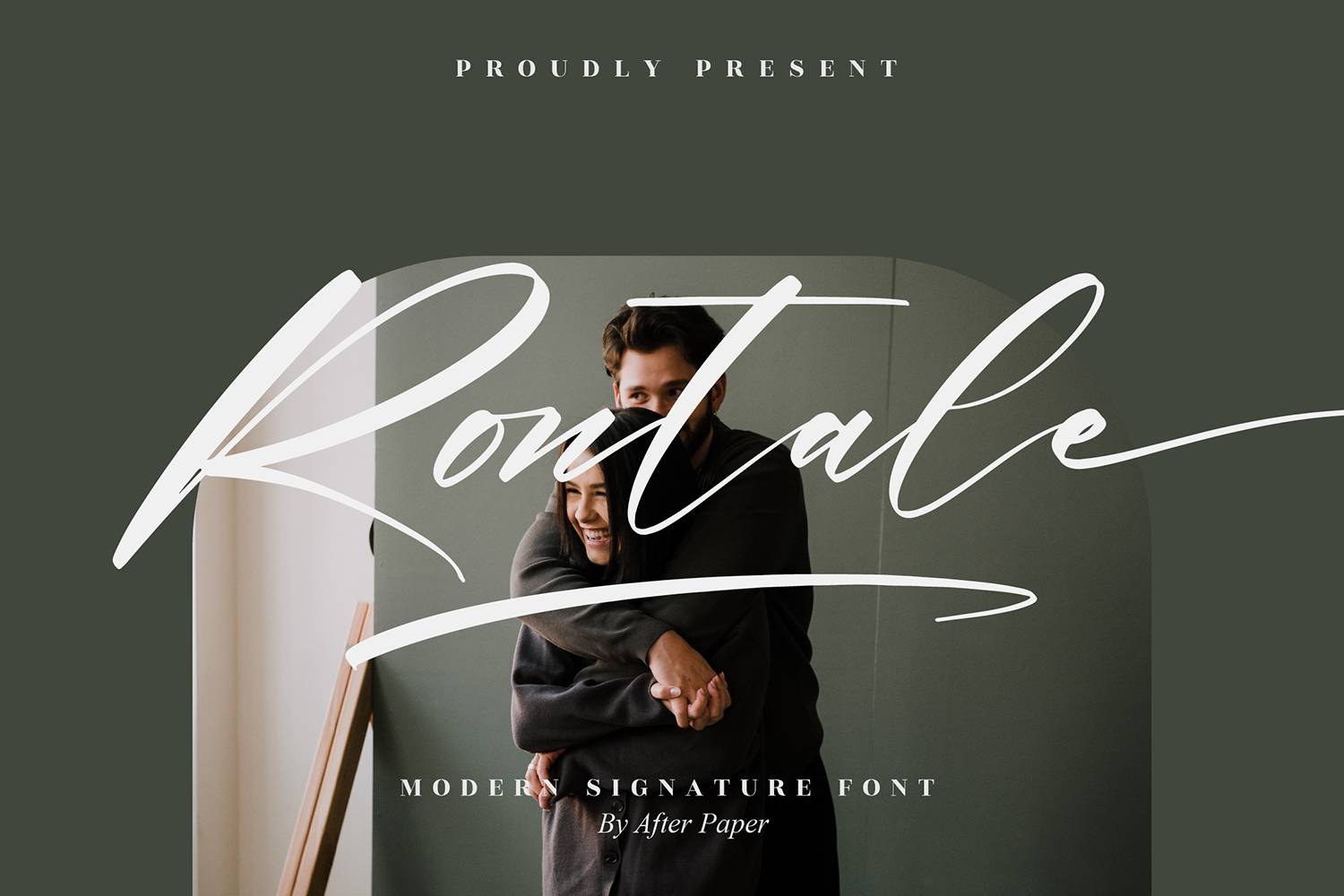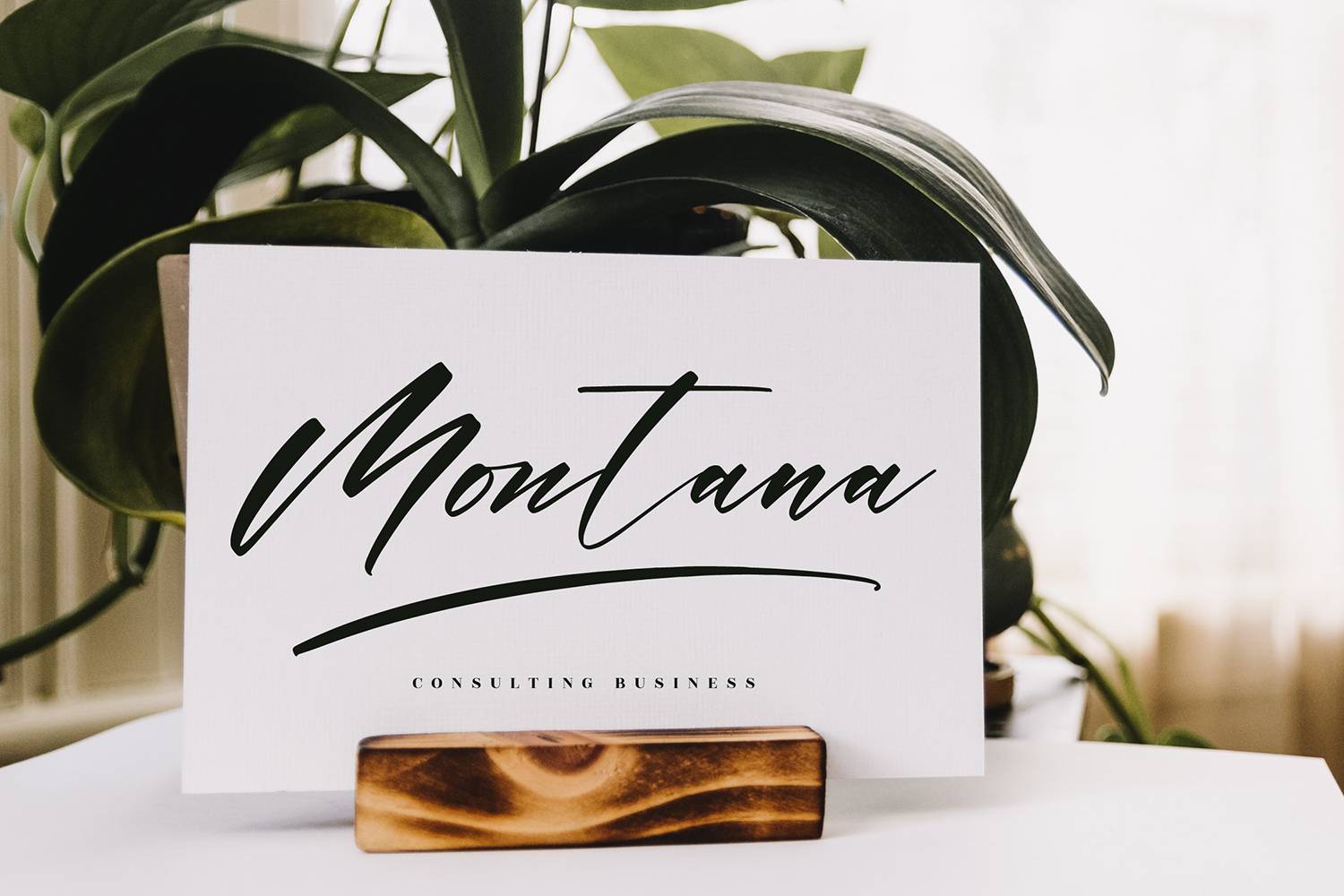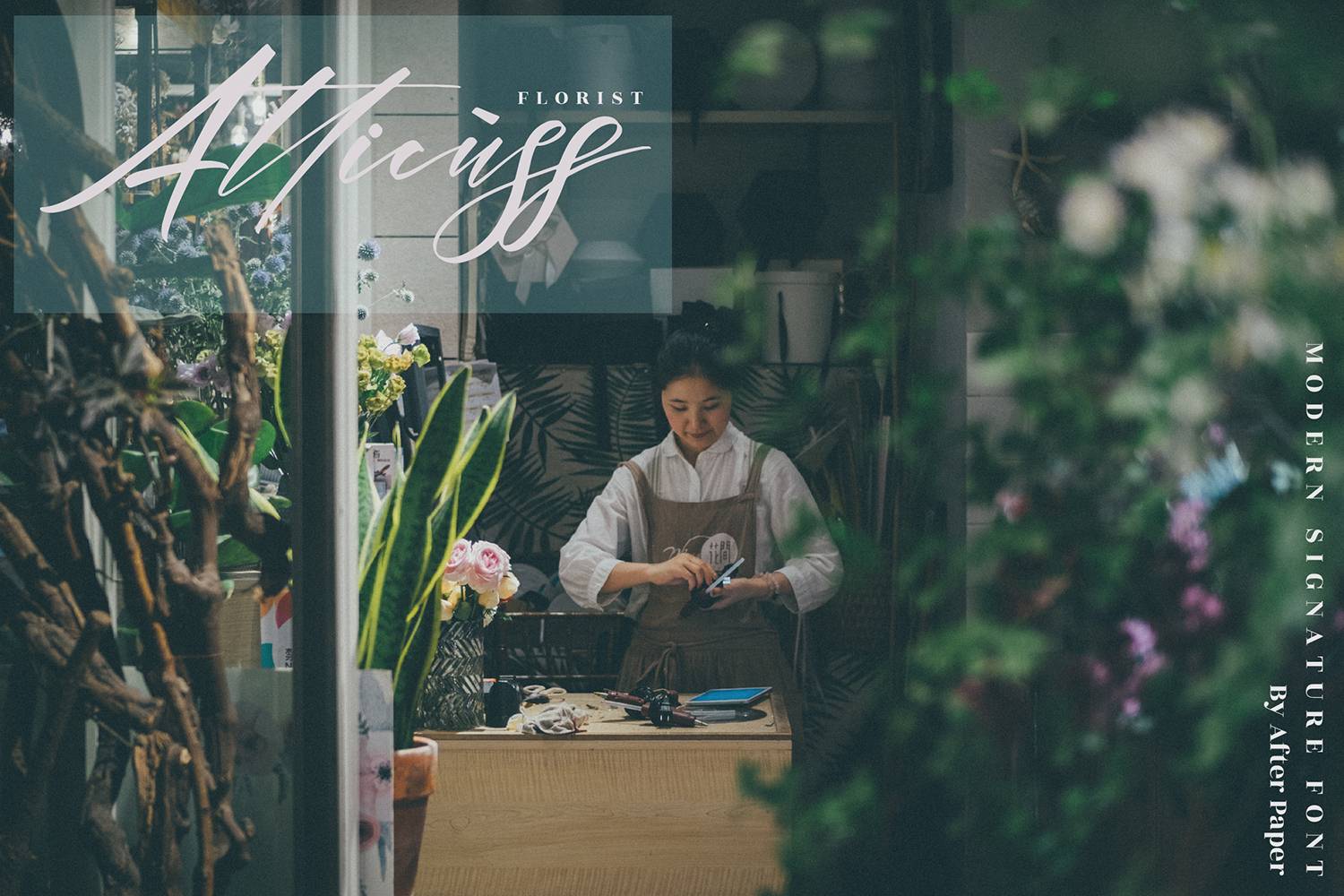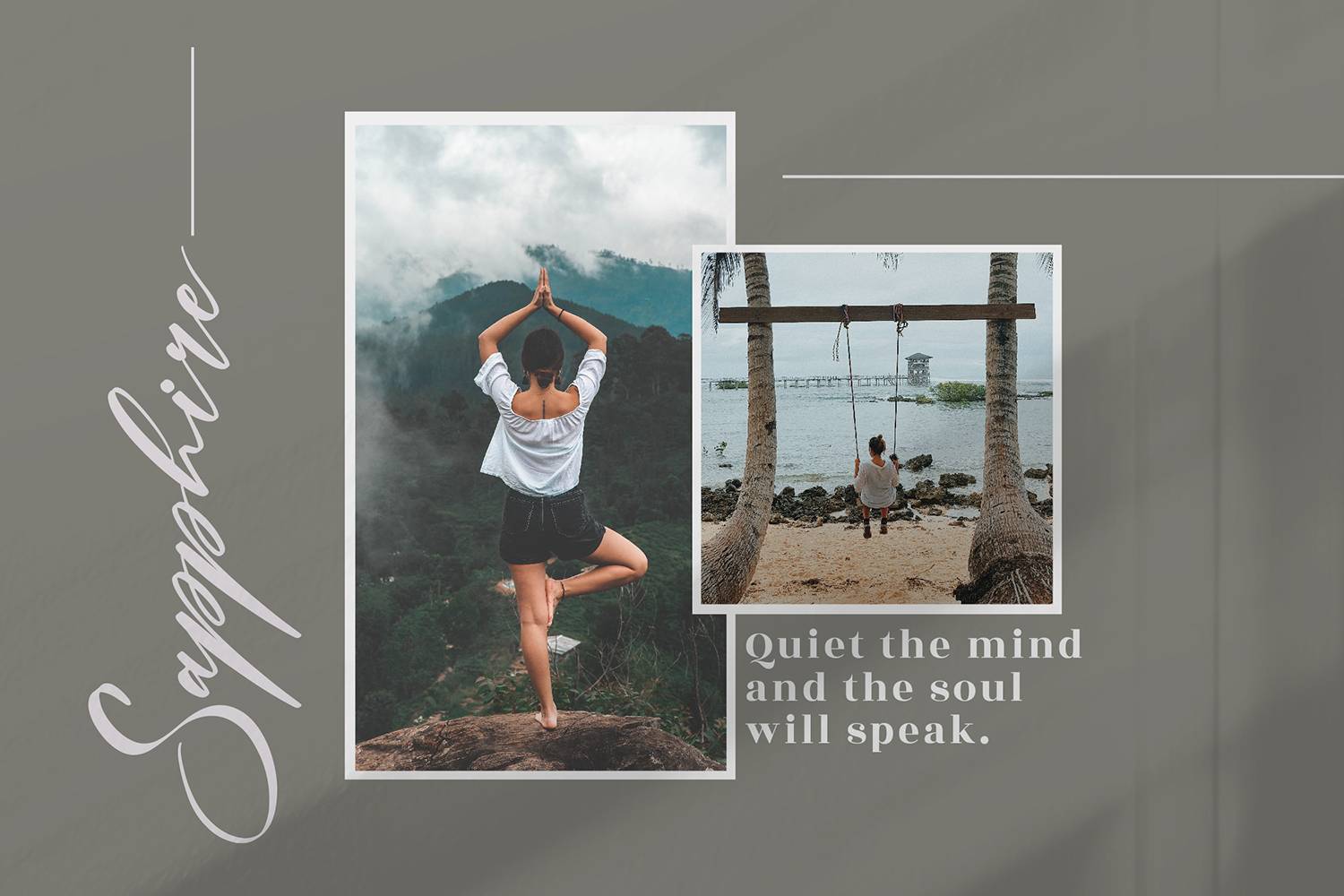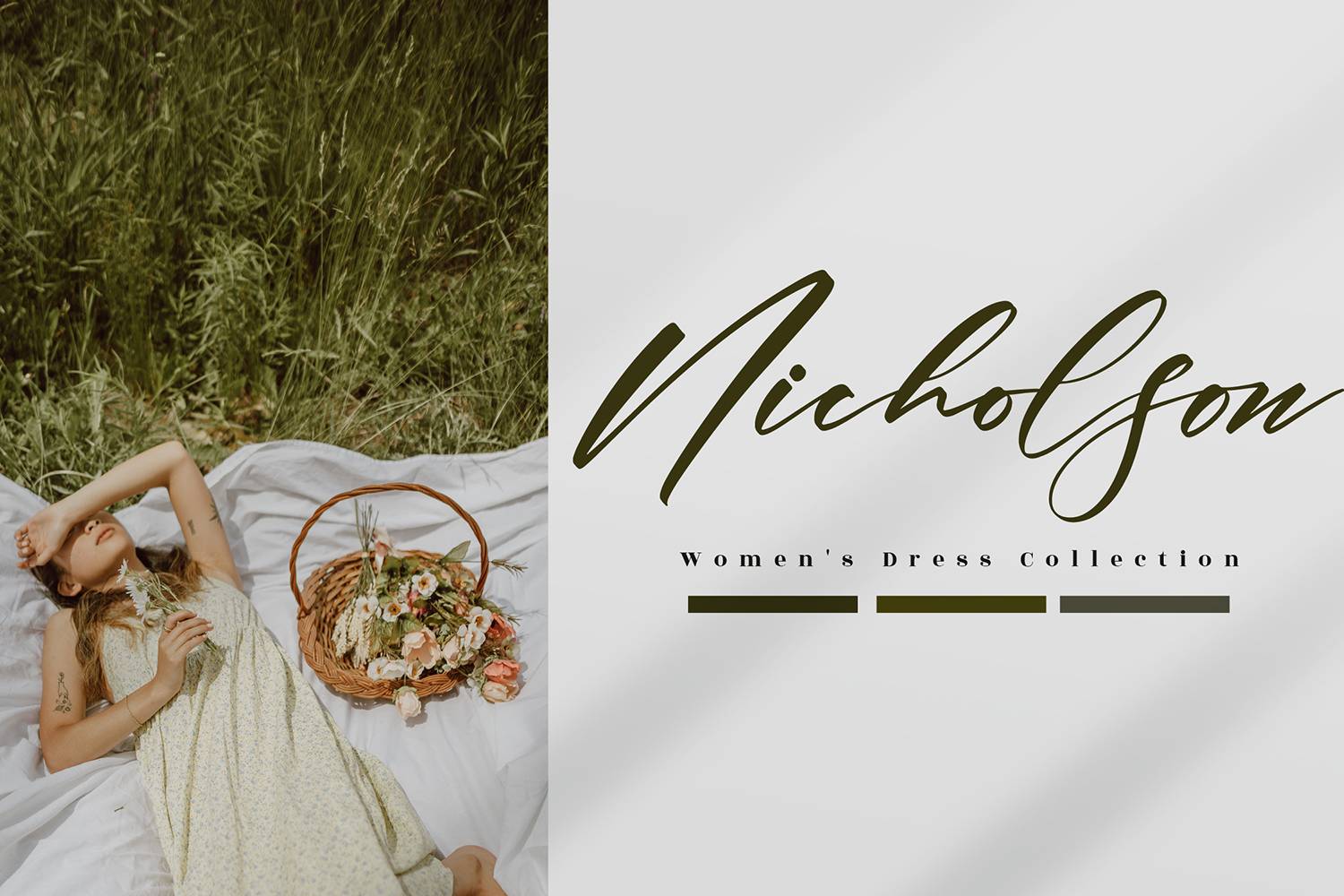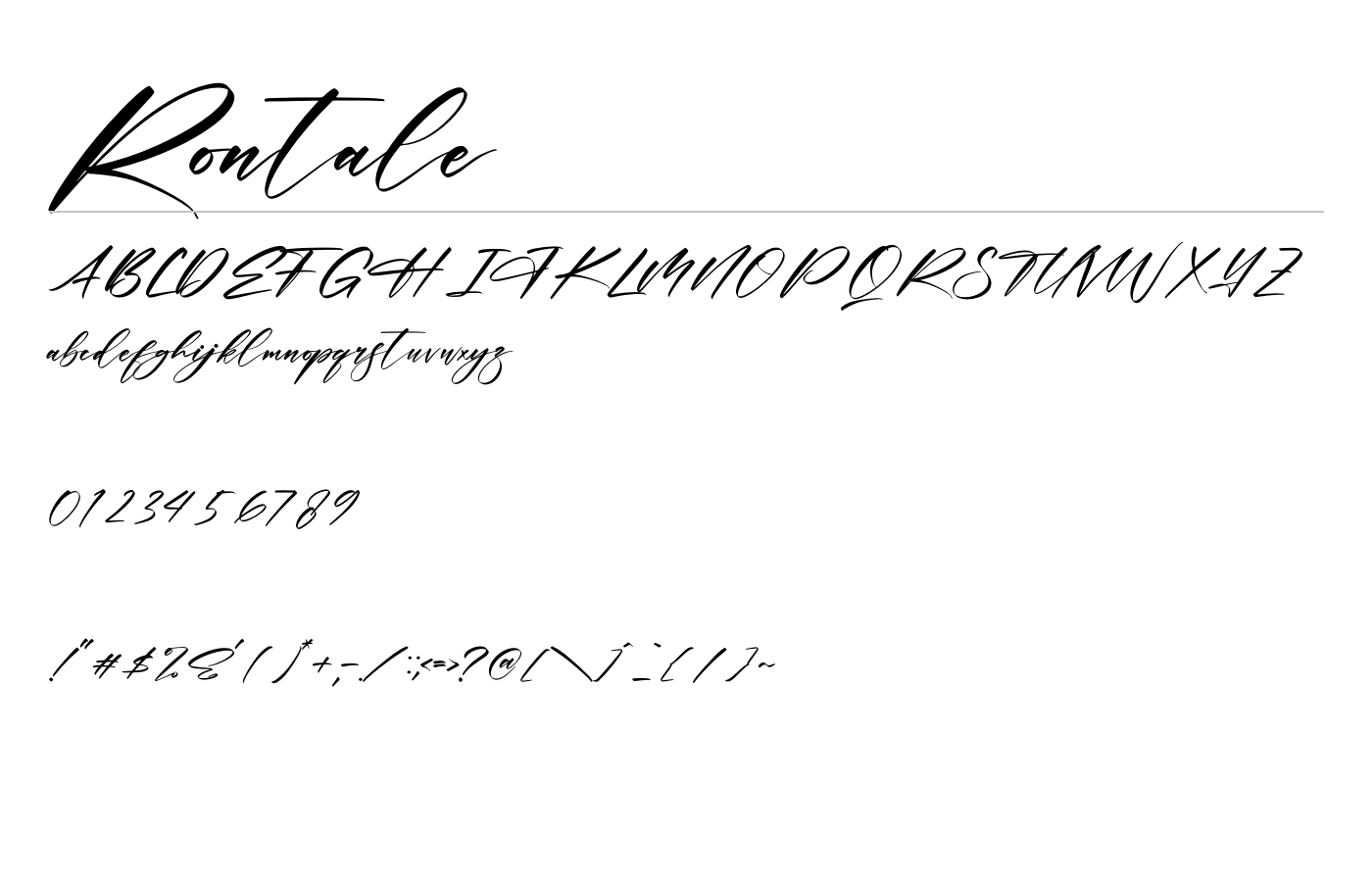
Rontale is an elegant script font with a flowing, handwritten style that combines both thin and slightly bold strokes, giving it a refined yet casual feel. Its high-contrast, slightly slanted letterforms and smooth curves make it perfect for sophisticated branding, wedding invitations, and stylish editorial work where a personal, artistic touch is desired. This font works beautifully in headlines and decorative text, adding a sense of grace and modern charm.
Rontale Font
About Rontale Font